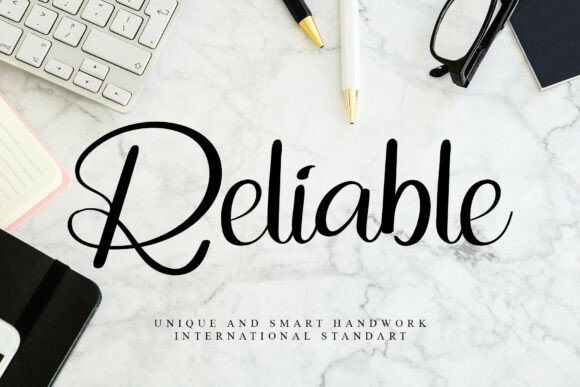
Reliable: A Font Designed for Elegance and Professional Touch
Imagine a font that feels like it was crafted with a personal, professional touch, ready to elevate your next project from ordinary to extraordinary. That’s the promise of Reliable, a unique and elegant typeface designed with careful attention to detail. This premium font is more than just a collection of letters; it’s a versatile design asset built to bring a polished, hand-touched sophistication to a wide range of creative work.
What makes Reliable stand out is its blend of classic appeal and modern utility. As a carefully crafted display font, it offers a distinctive personality that can define a project's mood. Whether you're working on brand identity, designing a logo, or creating stunning social media graphics, the right typeface is crucial. Reliable provides that professional foundation, helping to ensure your visual communication is both beautiful and effective.
Creative Applications for Every Project
The true value of a font lies in its application. Reliable is exceptionally versatile, making it a strong candidate for numerous design scenarios. Its elegant curves and professional hand-touch quality make it particularly suitable for projects where a personal, refined feel is desired.
- Invitations and Greeting Cards: From wedding invitation cards to birthday party announcements, Reliable adds a layer of sophistication and warmth that generic fonts lack.
- Editorial and Packaging Design: Use it for magazine headlines, book titles, or product packaging to capture attention and convey quality. It pairs well with simpler sans-serif or serif fonts for body text.
- Digital Products and Web Design: Apply Reliable in website headers, hero sections, or digital download covers to create a memorable first impression. Its clarity ensures it works well across screens.
- School Assignments and Presentations: For important events or academic projects, this font can help your work stand out with a professional, polished look that impresses.
- Explore Font Pairing: A great display font shines when paired correctly. Try combining Reliable with a clean sans-serif for body copy or a simple serif for a balanced hierarchy. This creates visual interest and improves readability.
Investing time in typography is investing in the clarity and impact of your message. A well-designed typeface like Reliable doesn't just decorate text; it enhances brand recognition, improves visual consistency, and lends an air of professionalism to any creation. By choosing a font that is both beautiful and functionally sound, you empower your ideas to communicate more effectively and leave a lasting impression. Let your creative projects speak with the elegance they deserve.